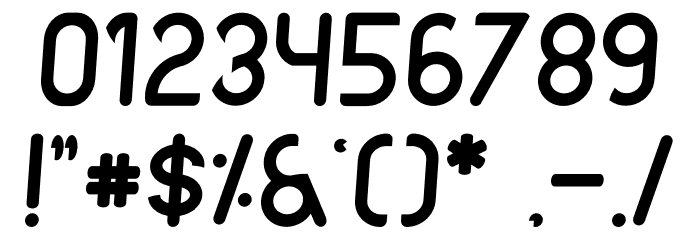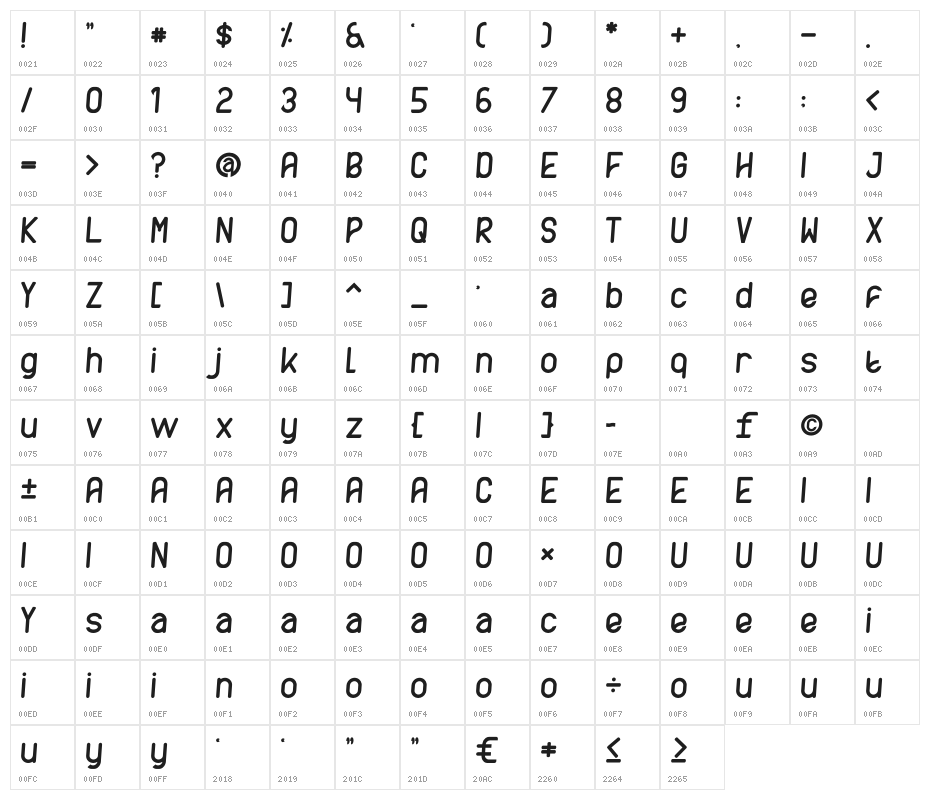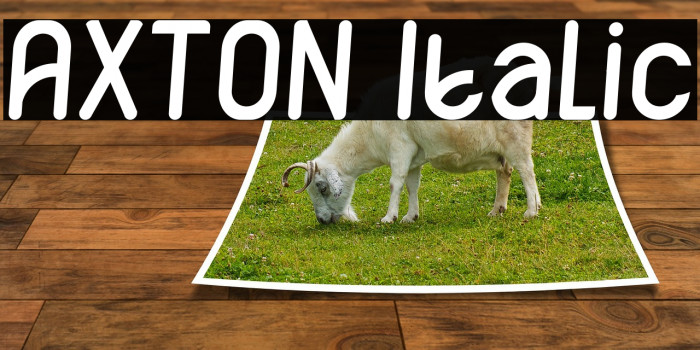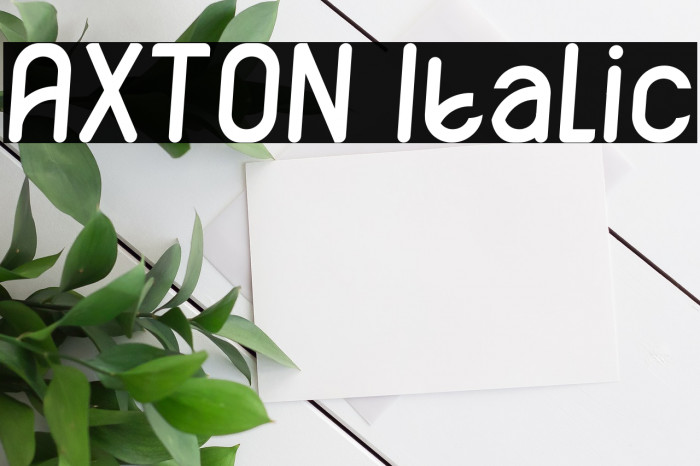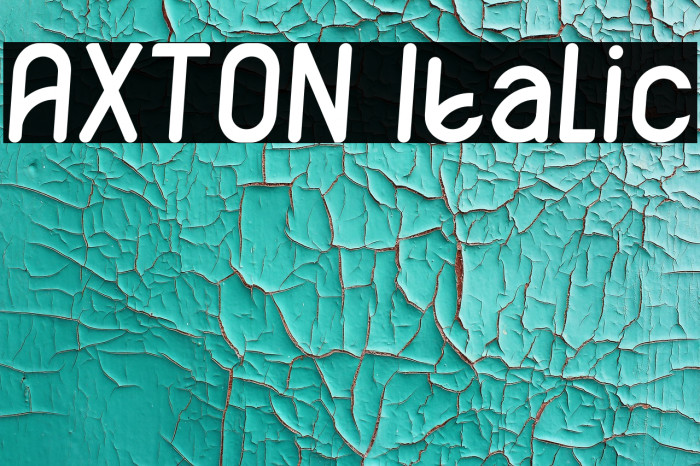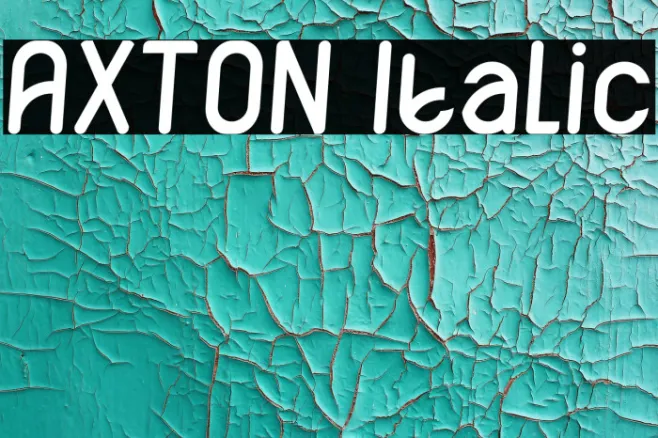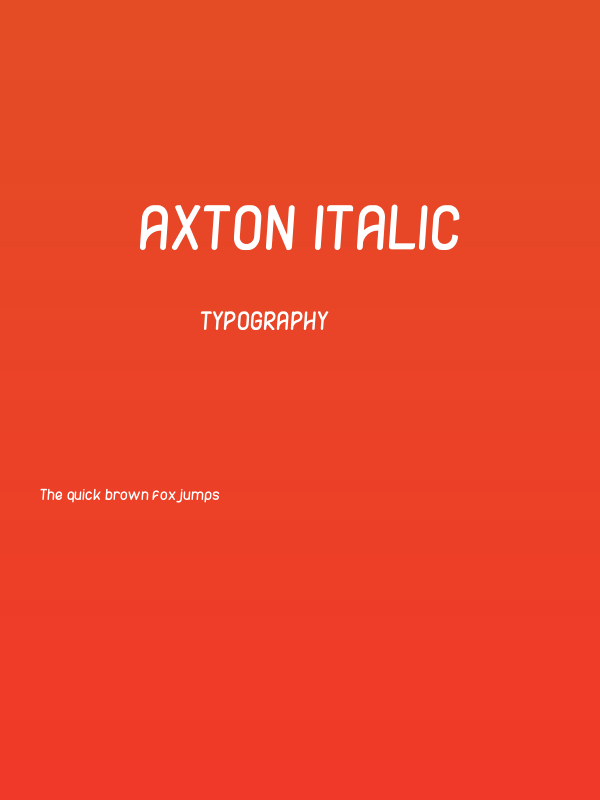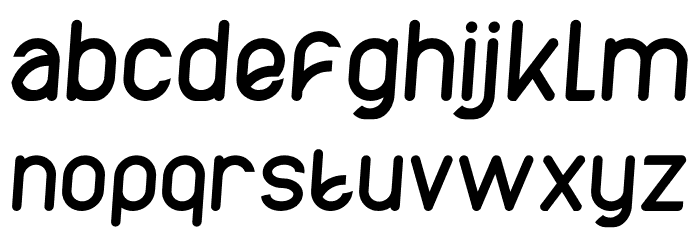
AXTON Italic Font
AXTON Italic Description
This font features a playful and rounded style with a slight italic slant, giving it a dynamic and informal appearance. The characters are bold and have a consistent stroke width, contributing to a uniform look across both uppercase and lowercase letters. The rounded edges and smooth curves create a friendly and approachable feel, making it suitable for casual and creative projects. The numbers and special characters maintain the same rounded and bold characteristics, ensuring consistency throughout the font set.
| Proposed Projects | Ideal for children's books, playful branding, casual invitations, and creative posters. |